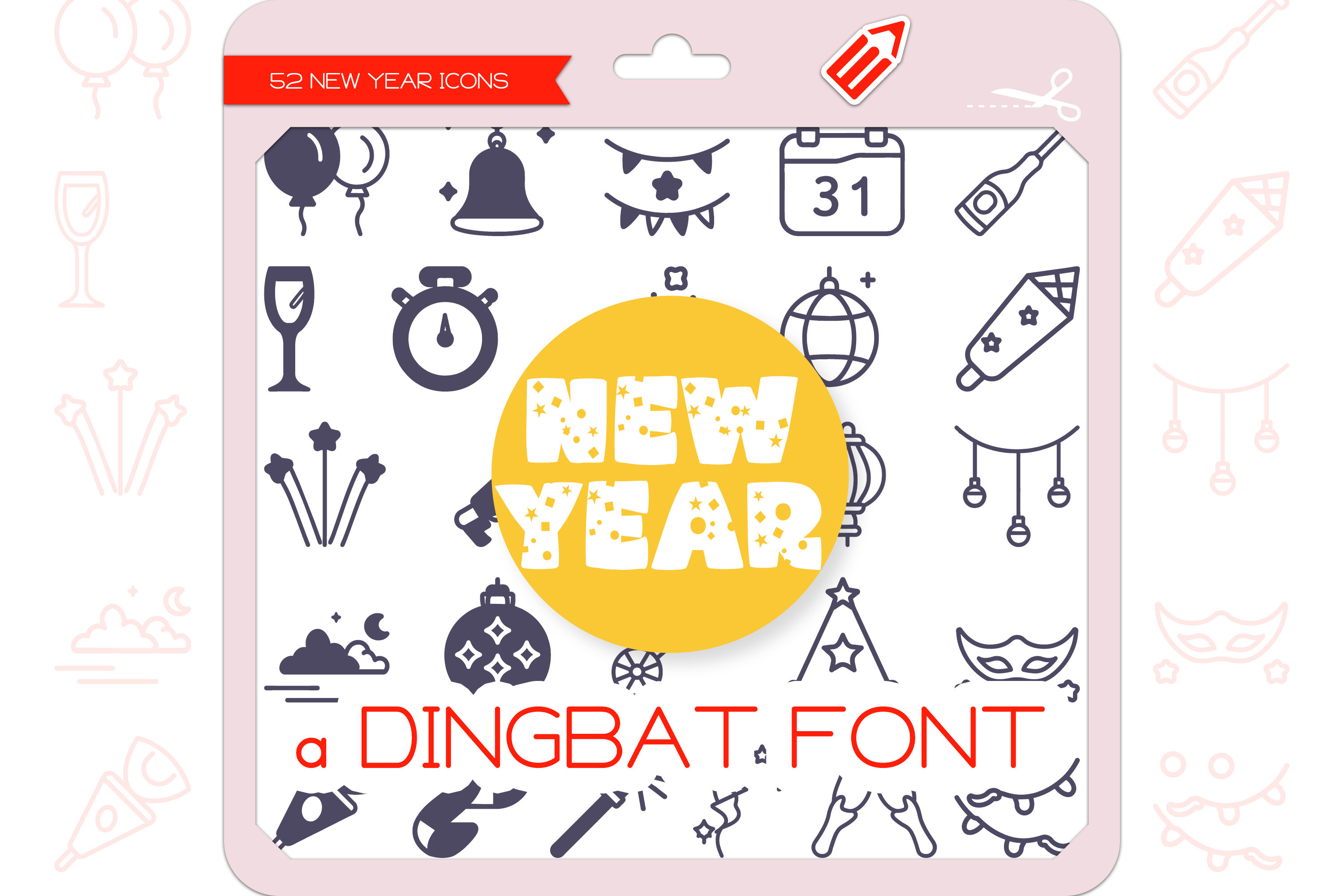
New Year Icons - Dingbat Font
New Year is a unique and cute dingbat font. It contains 52 icons in 2 styles (Outline & Filled-Outline). Add this font to your creative ideas and make your arts outstanding!
The New Year Icons Dingbat Font featuring 26 things Balloon, Bell, Bunting, Calendar, Champagne Bottle, Champagne Flute, Clock, Confetti, Disco Ball, Firecracker, Fireworks, Horn, Hourglass, Lantern, Lights, Midnight, New Year's Ball Drop, Noisemaker, Party Hat, Party Mask, Party Popper, Serpentine, Sparkler, Streamers, Toast, Tinsel